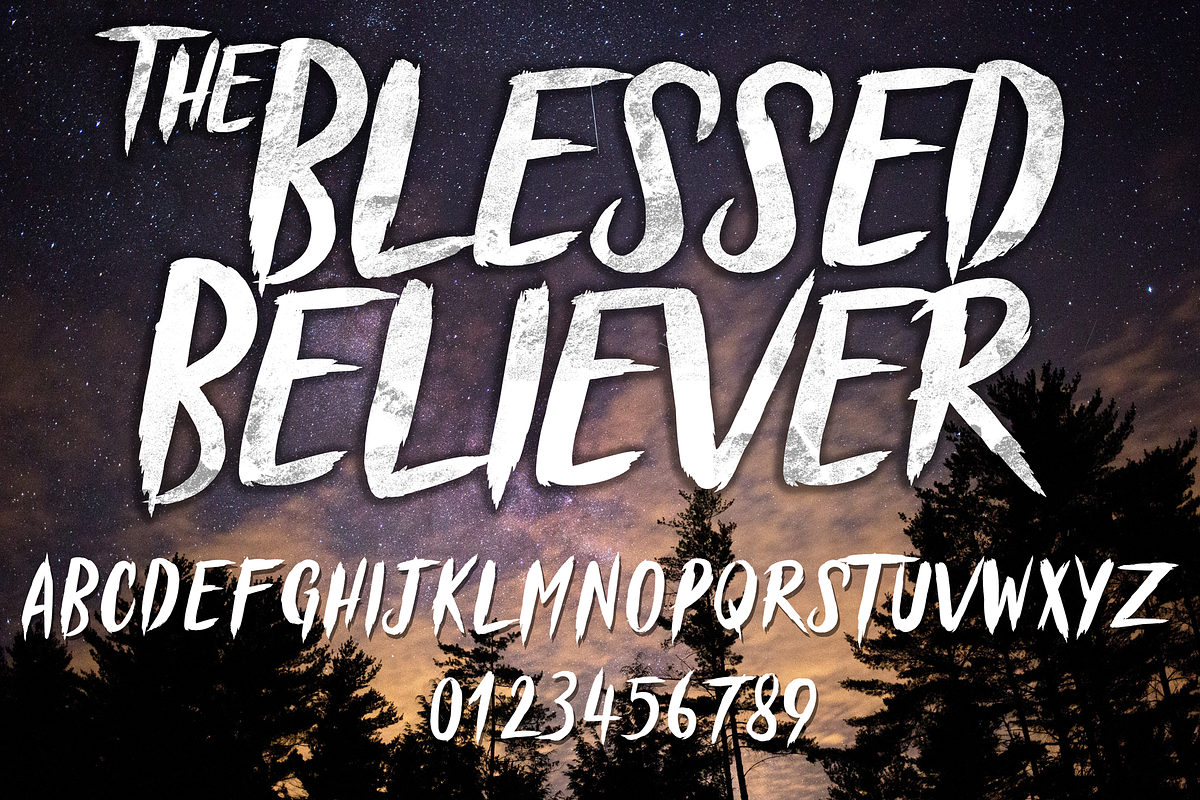
Blessed Believer Typeface
BLESSED BELIEVER TYPEFACE
Perfect to your band logo, posters, and other products.
Why Blessed Believer Typeface is worth a look
Blessed Believer Typeface by CCONCEPTLAB fits naturally into Branding, posters, packaging, typography.